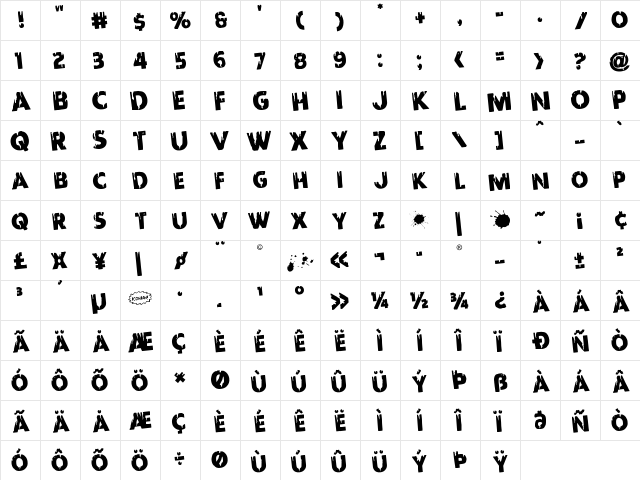
Red Undead Rotated Regular
Design Context for Red Undead Rotated Typeface
Red Undead Rotated is a composed and adaptable typeface that performs quietly and consistently across a wide range of design contexts.